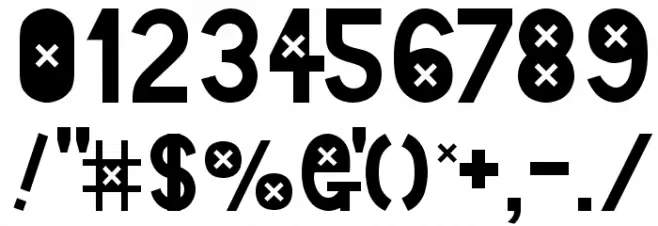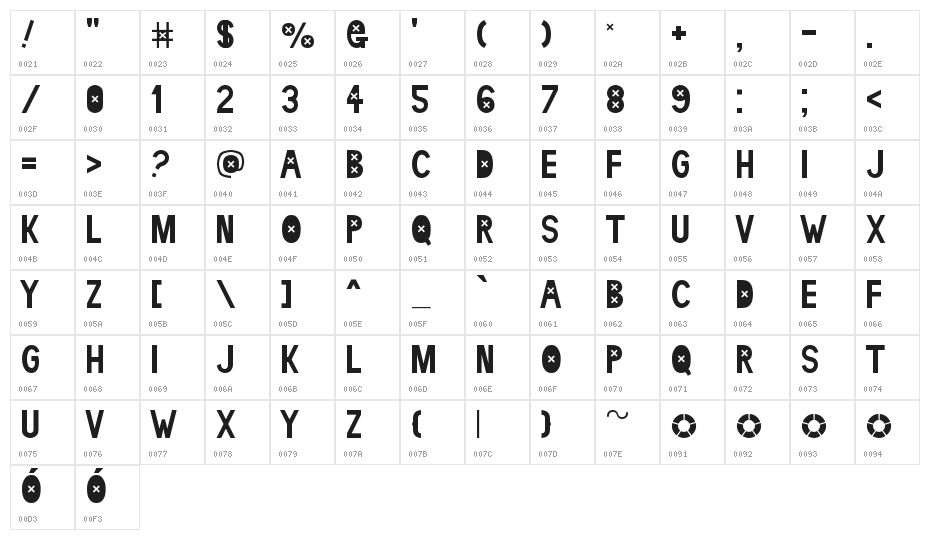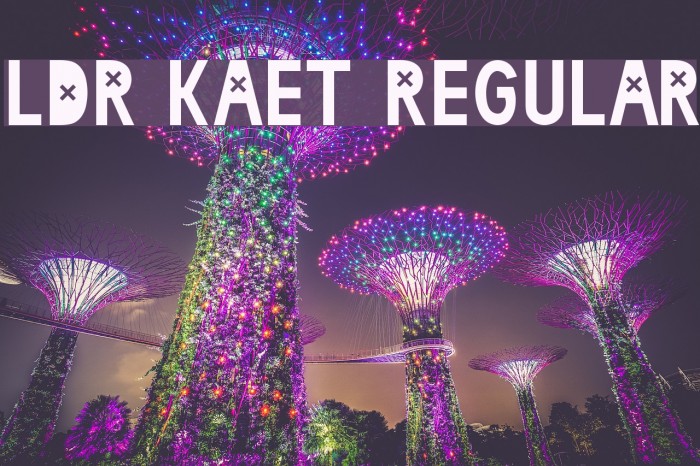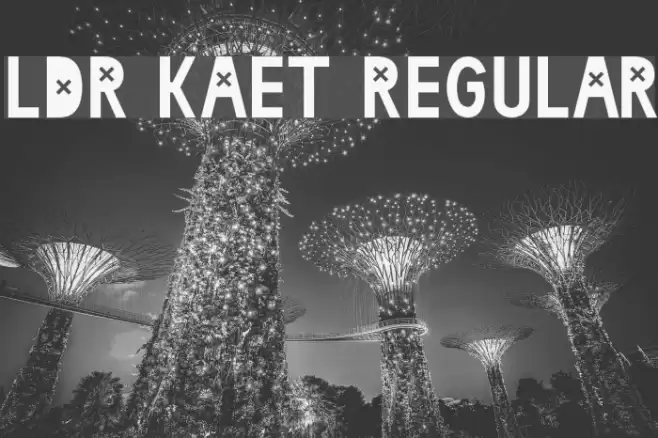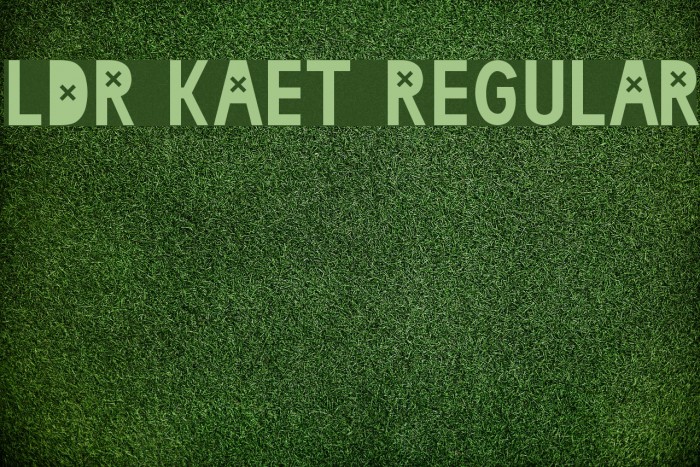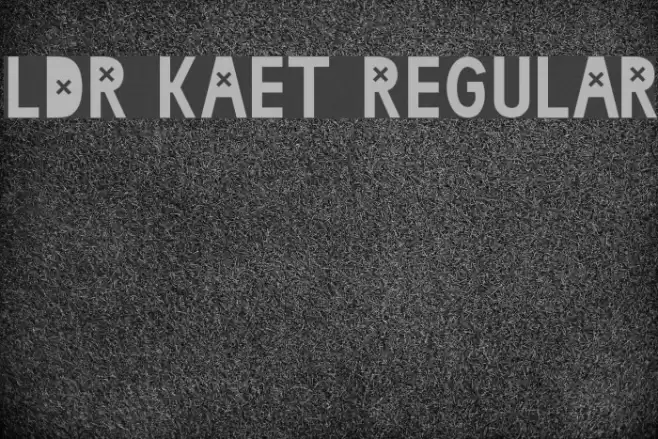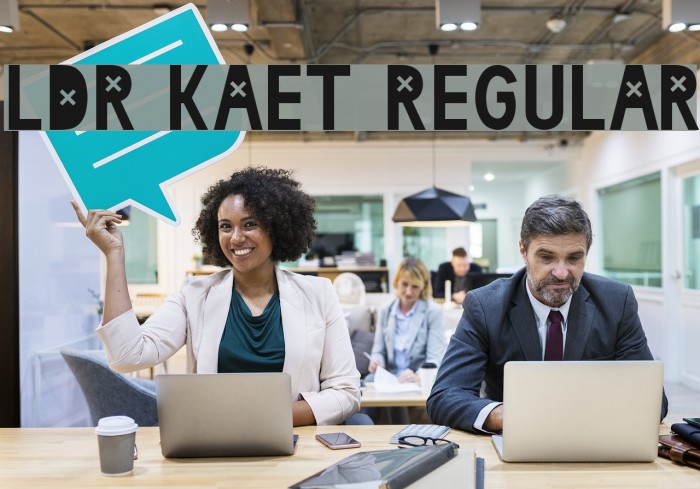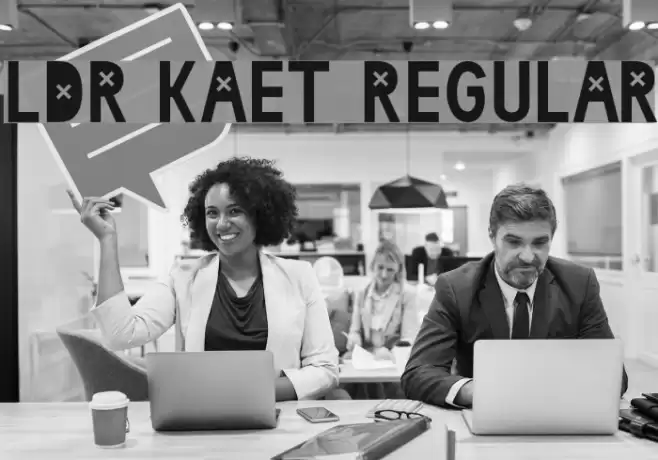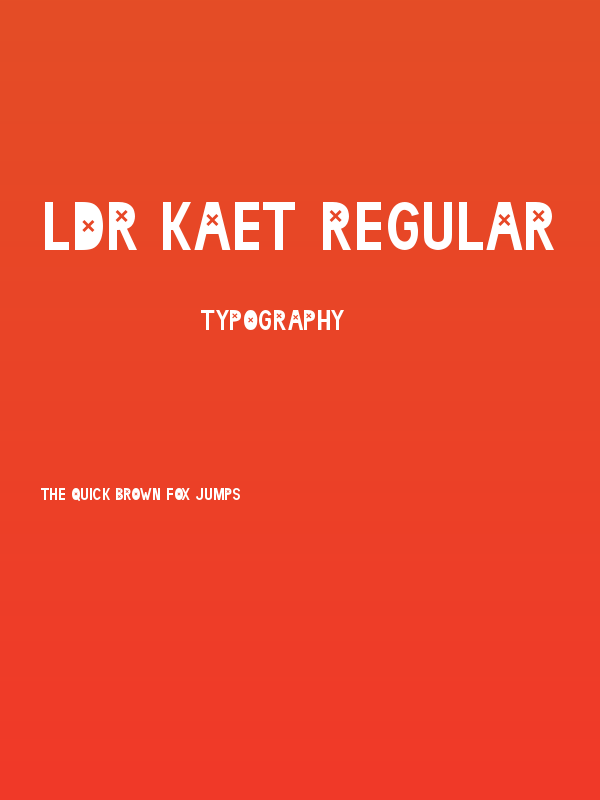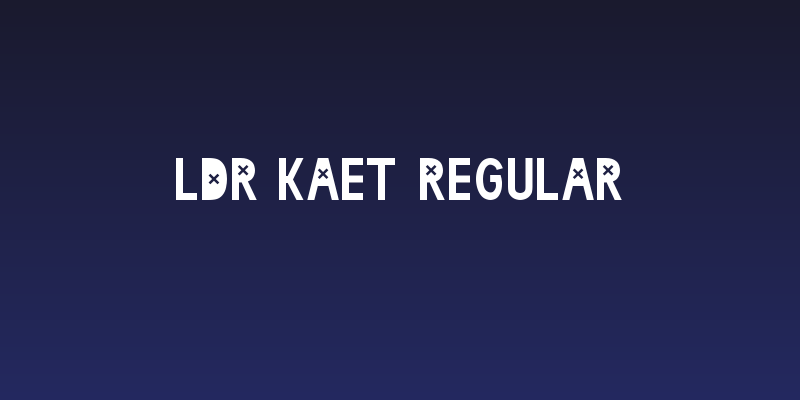
LDR KAET Regular Font
LDR KAET Regular Description
This font features a bold and striking design with a unique decorative element: each character includes a cross or 'X' motif within its structure, adding a playful and eye-catching detail. The letters are uniformly bold, with consistent stroke widths that contribute to a strong visual impact. The overall design is modern and geometric, with clean lines and a structured appearance. The numbers and special characters maintain the same stylistic theme, ensuring a cohesive look across all elements. This font is ideal for projects that require a bold statement or a distinctive visual identity.
| Proposed Projects | Ideal for branding, posters, and any design needing a bold, distinctive look. |